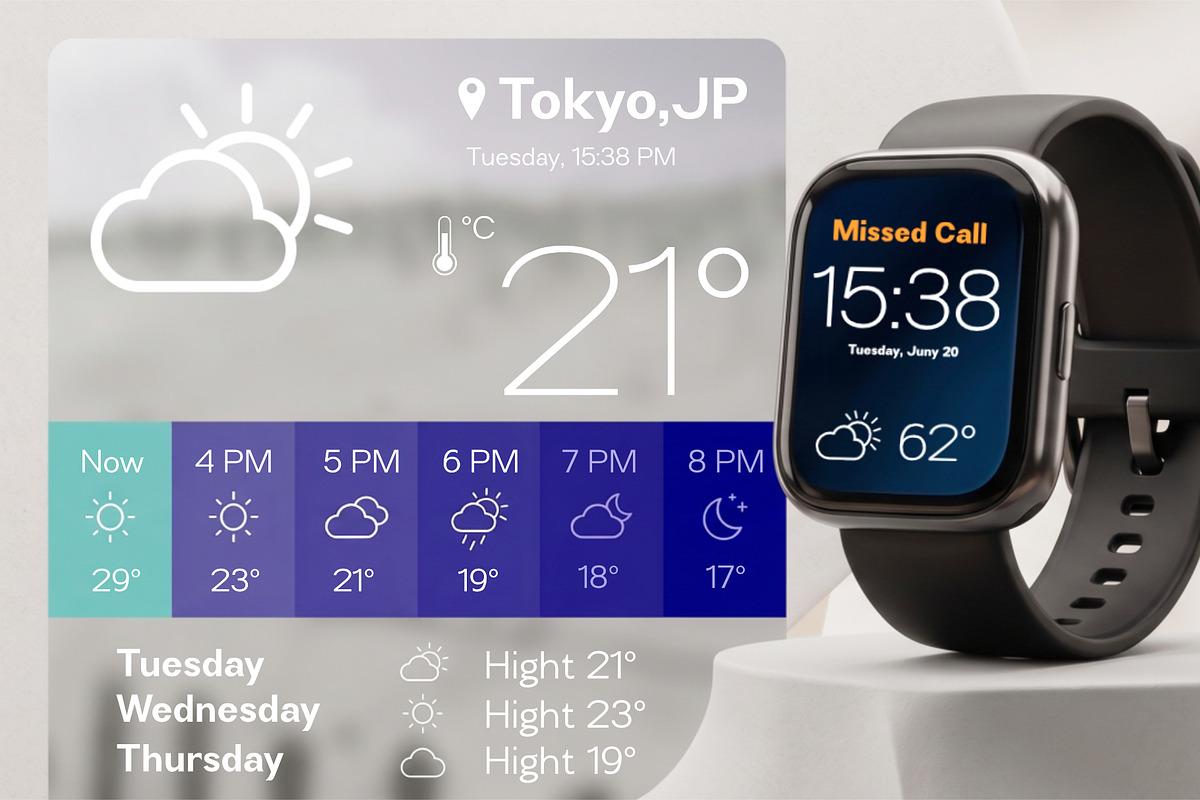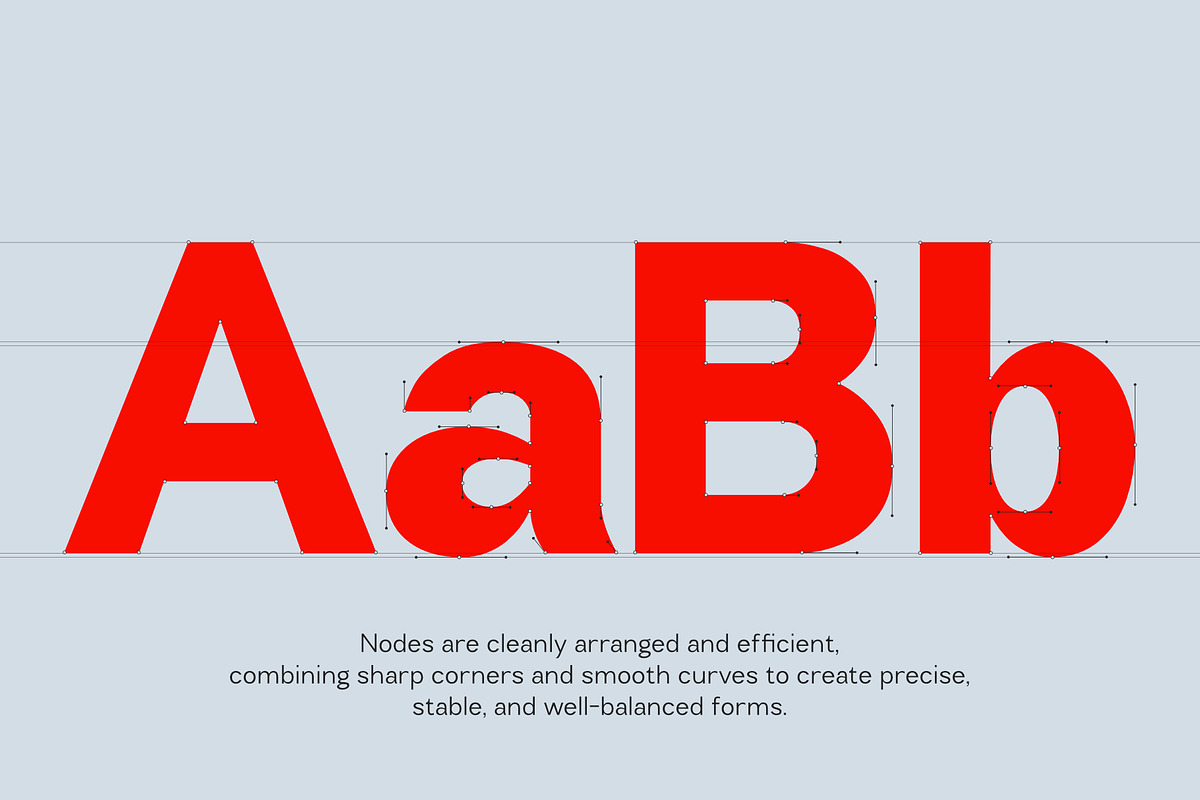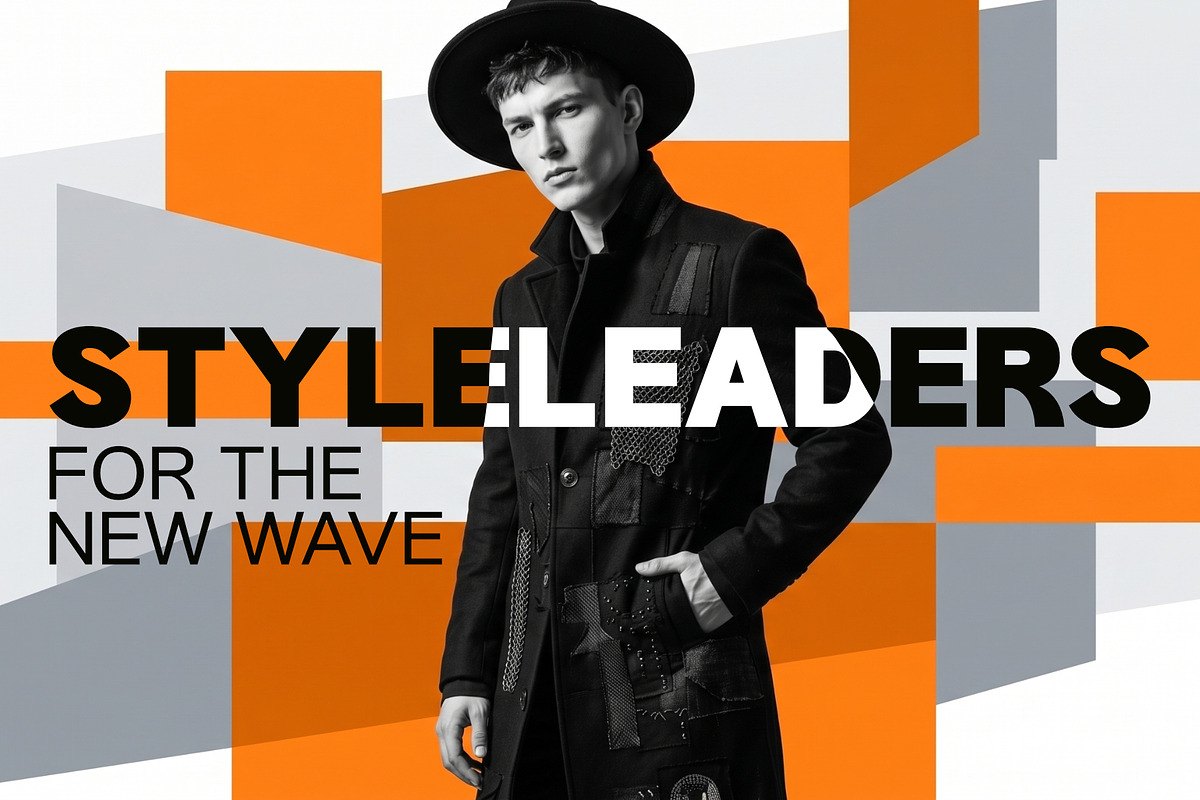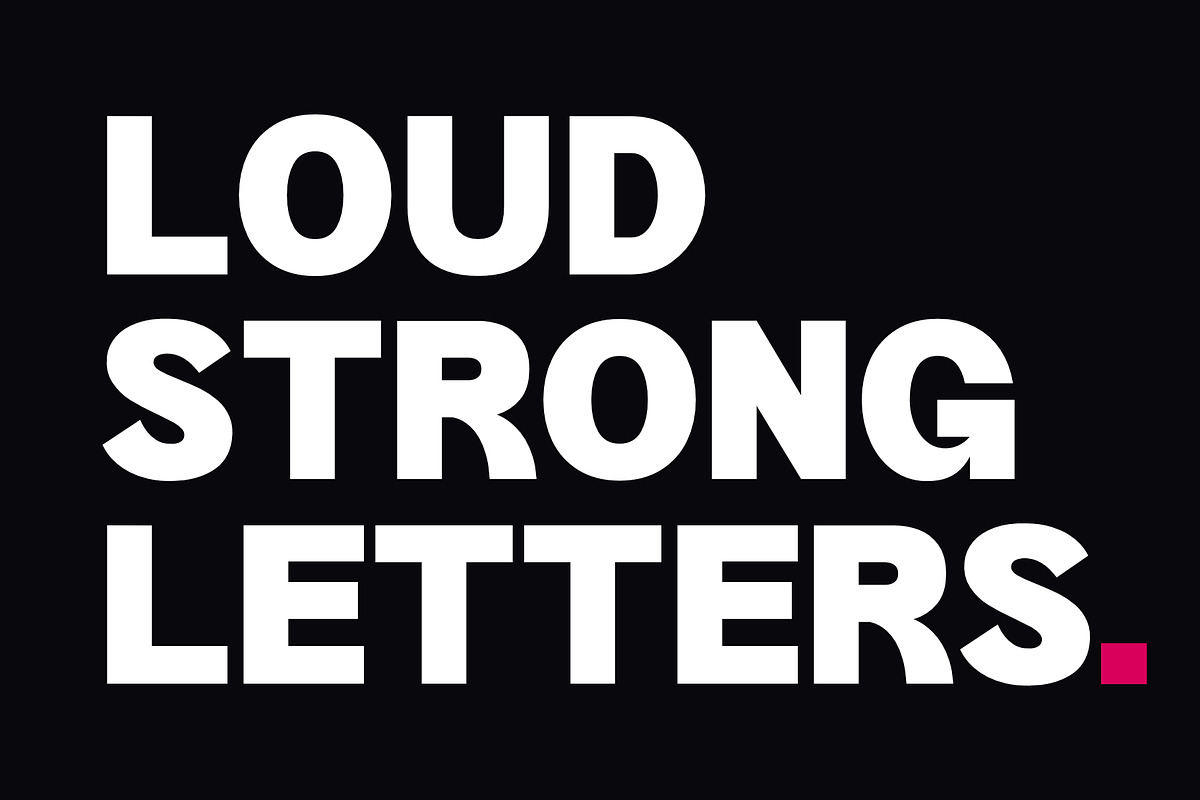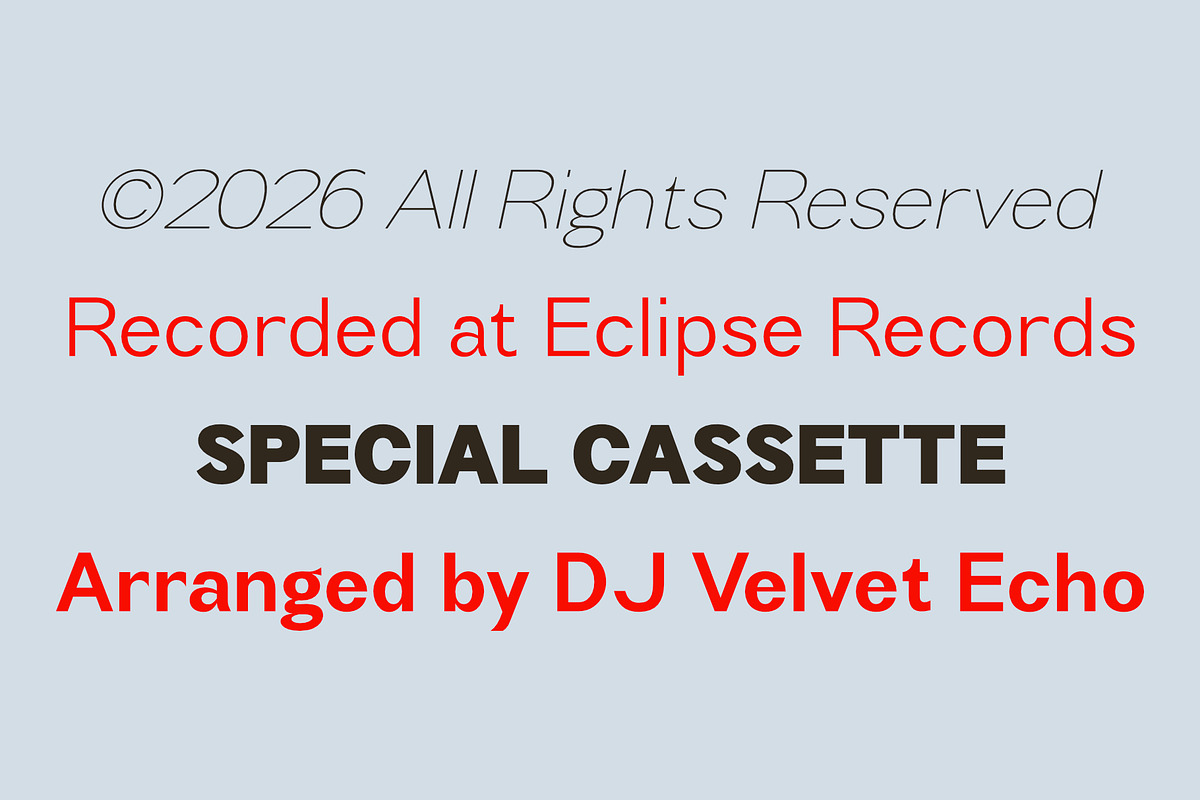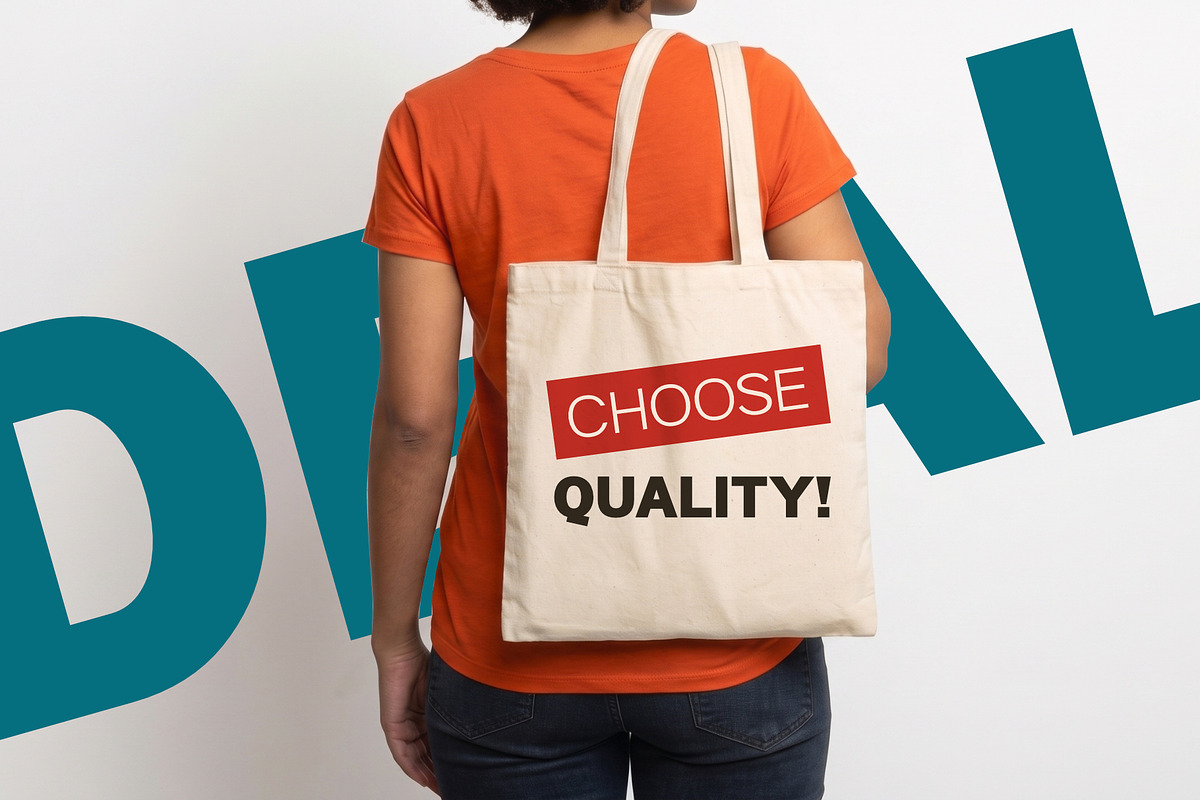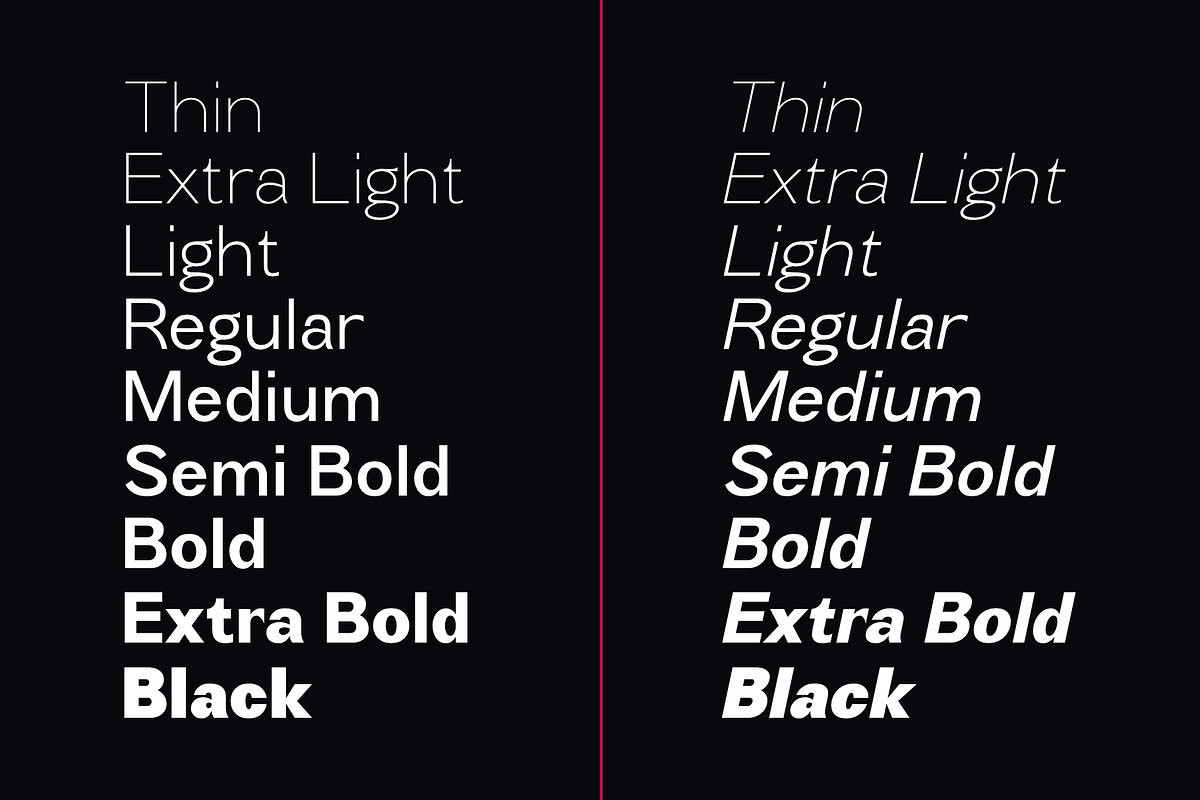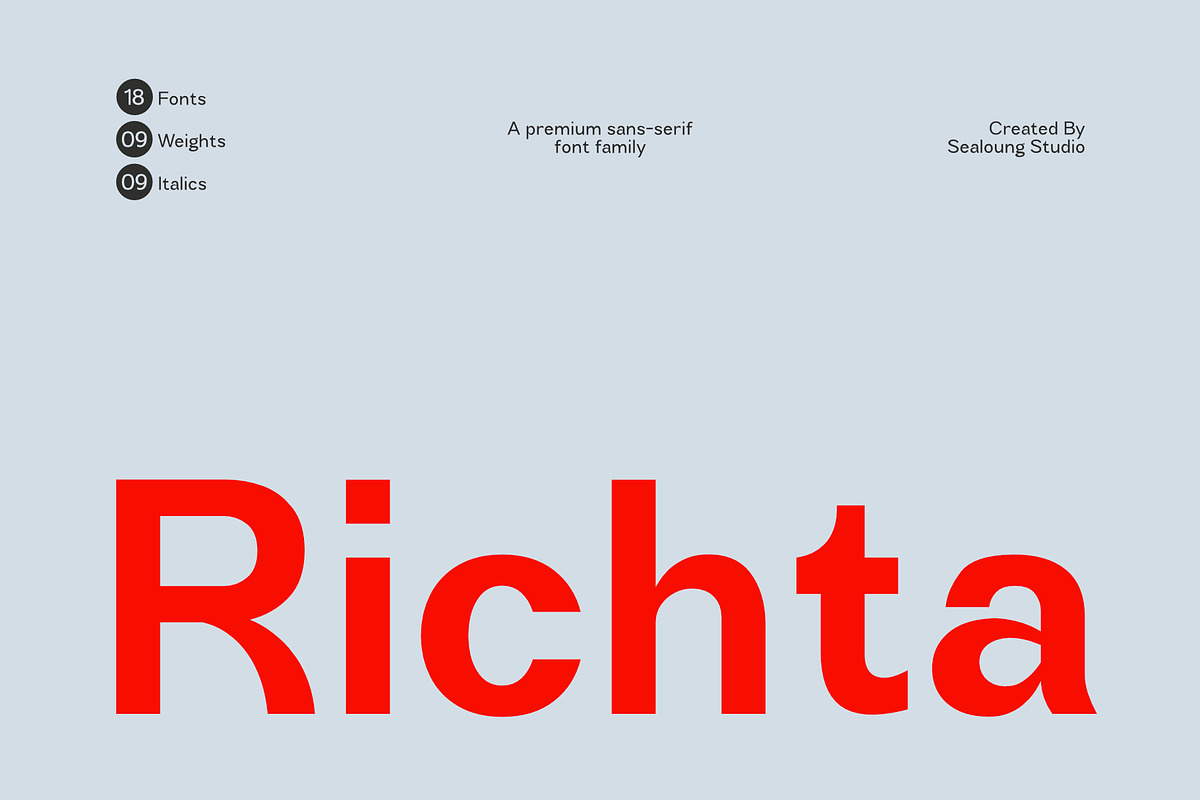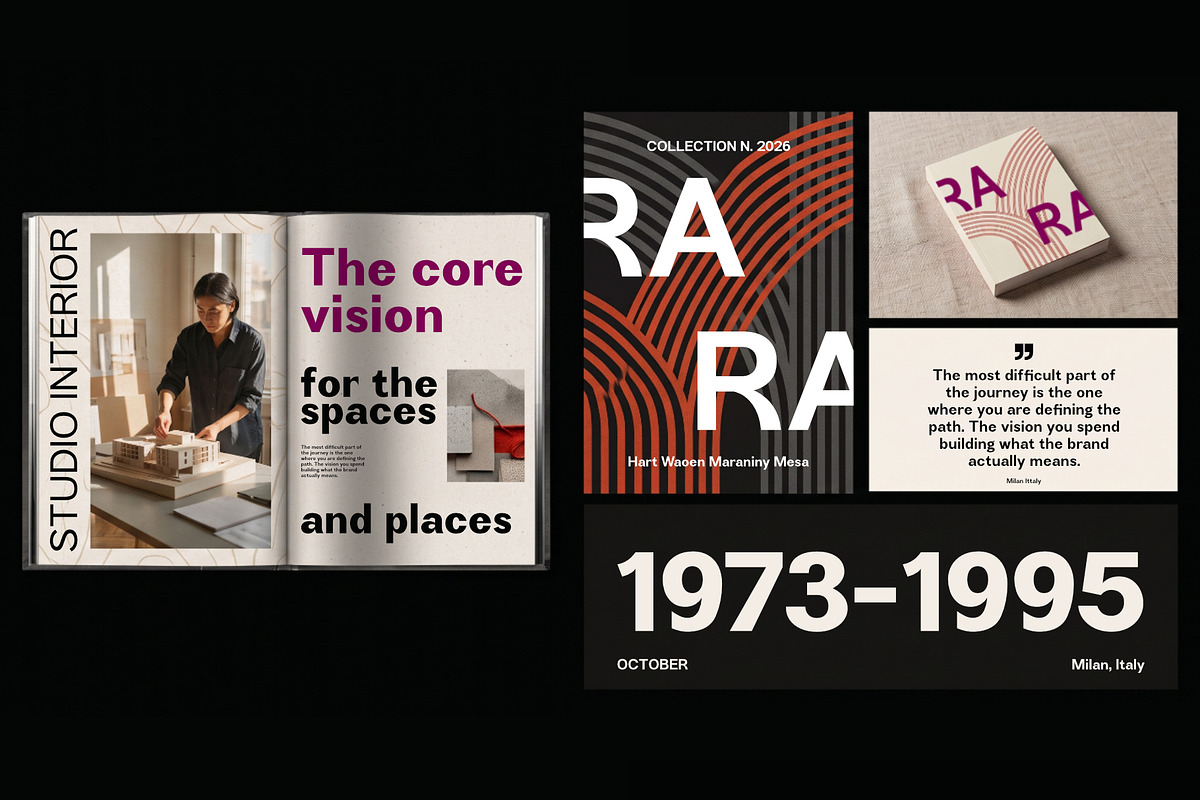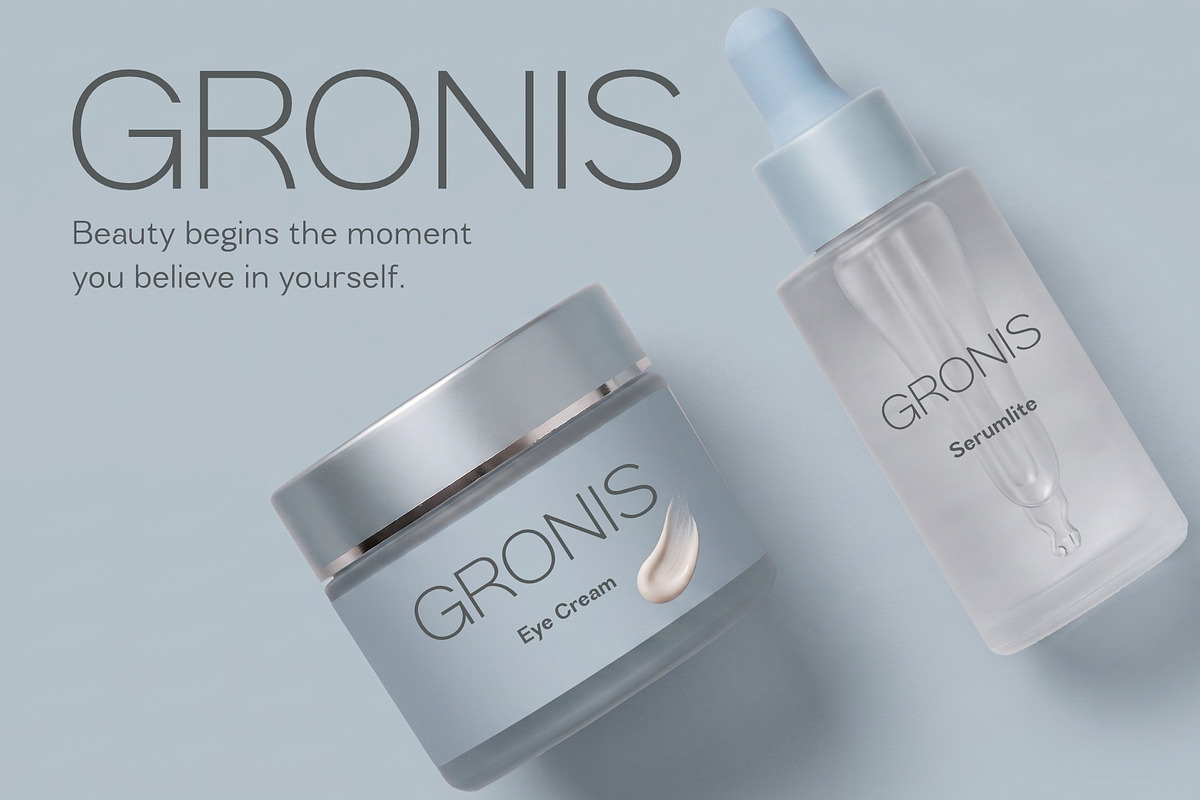
Richta – Premium Sans Serif Family
Richta is a modern and versatile sans serif family crafted with precision and clarity. Designed to deliver a clean, bold, and contemporary look, Richta brings strong visual impact while maintaining excellent readability across various design needs.
With a complete system of 18 styles, including 9 weights and matching italics, Richta offers maximum flexibility for both creative and professional projects. Its balanced proportions and smooth curves make it ideal for branding, editorial layouts, headlines, and digital interfaces.
Richta stands out with its confident character and minimalist elegance, making it a perfect choice for designers seeking a powerful yet refined typographic voice.